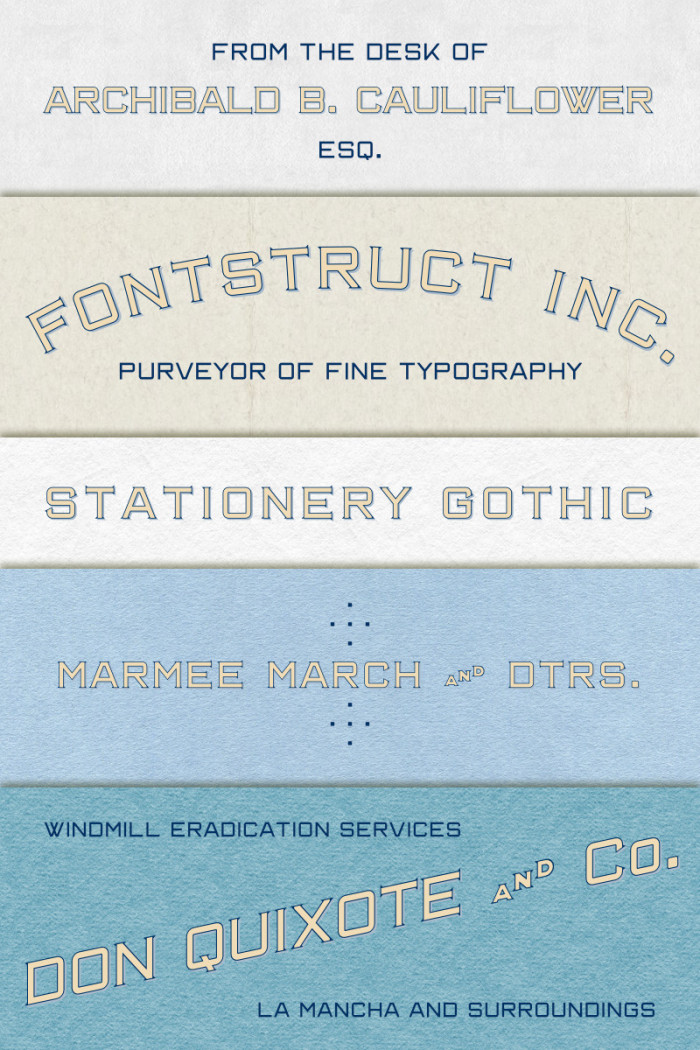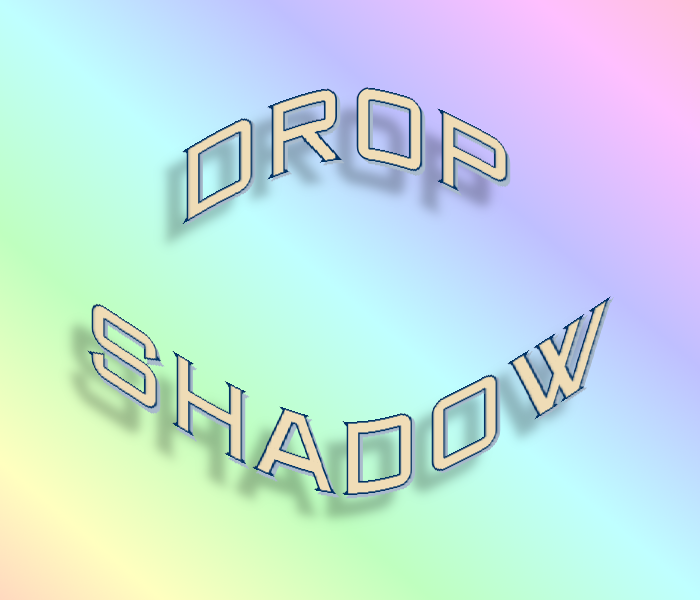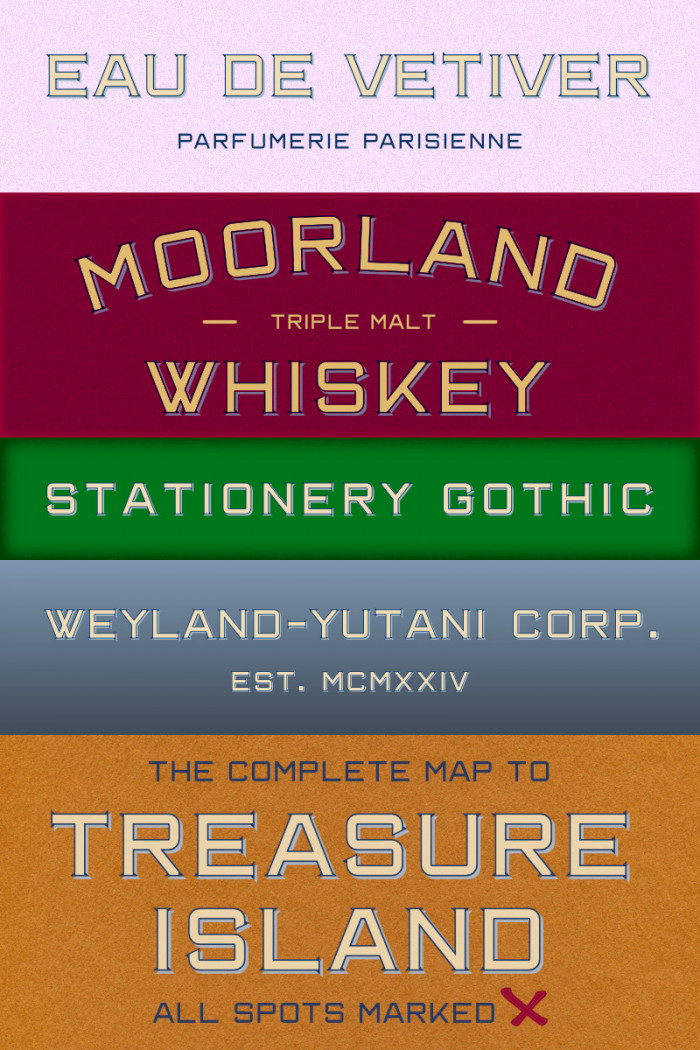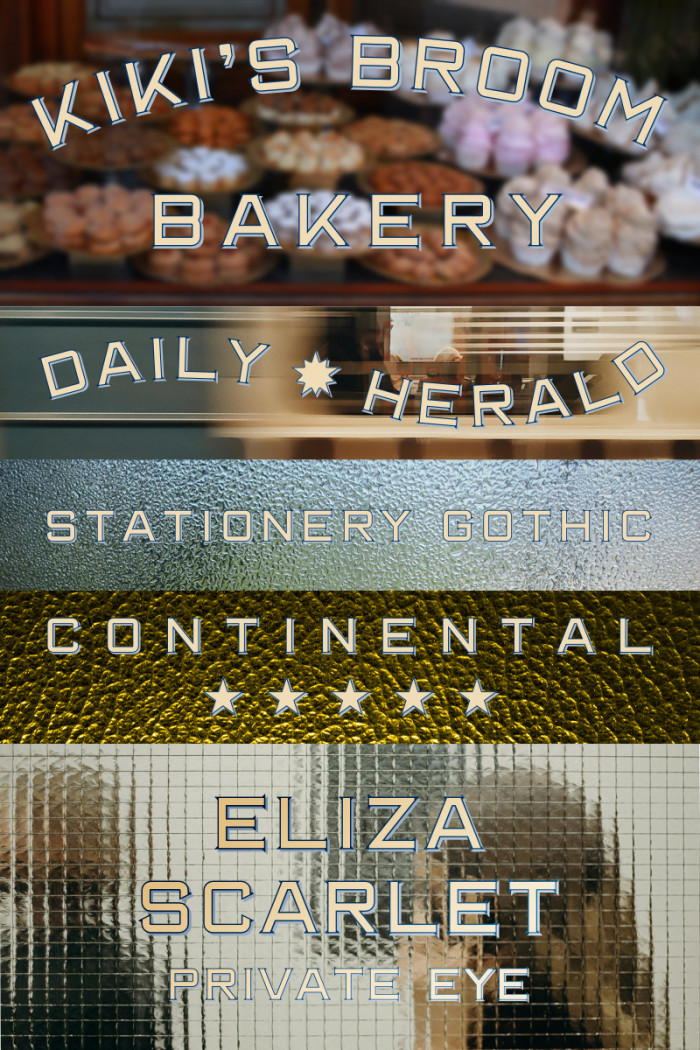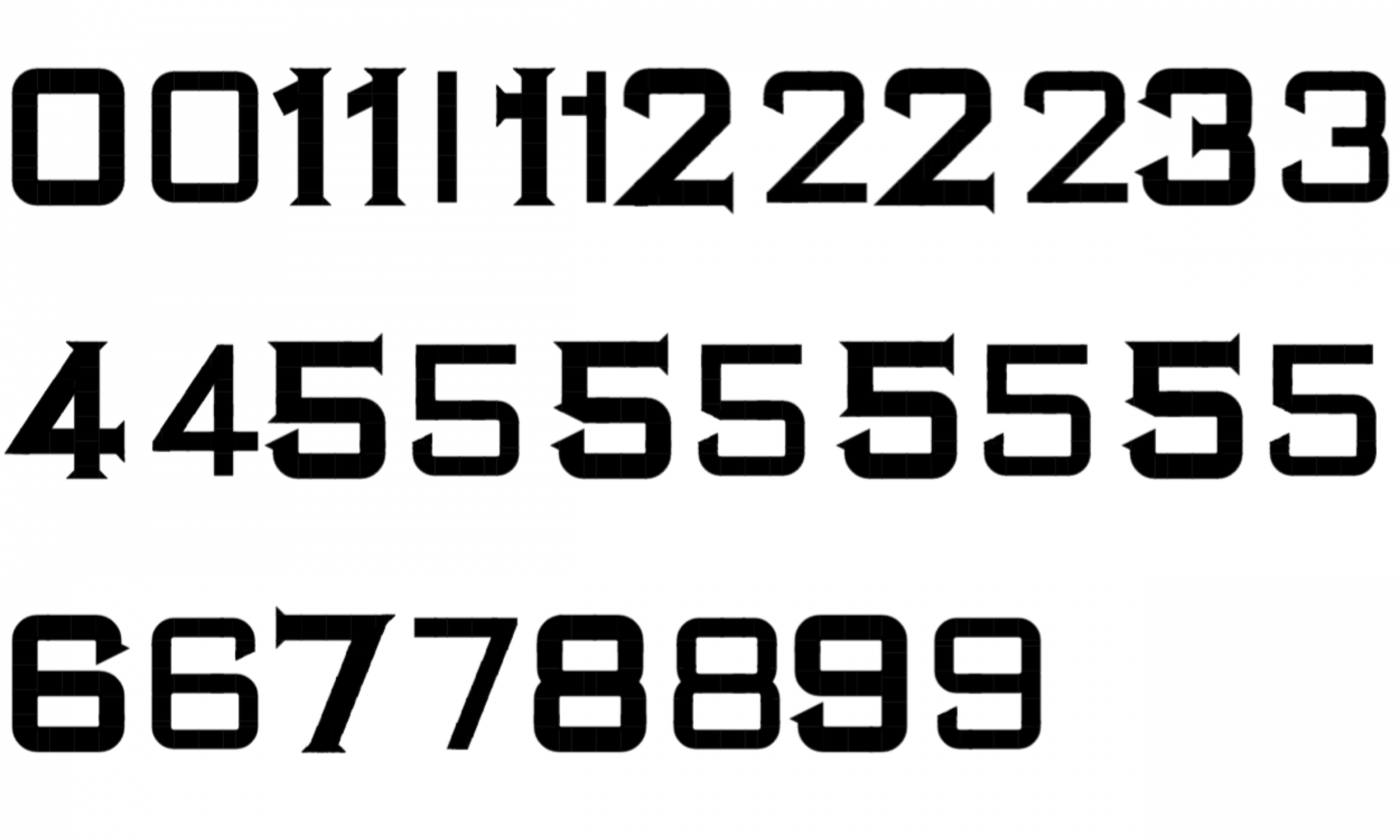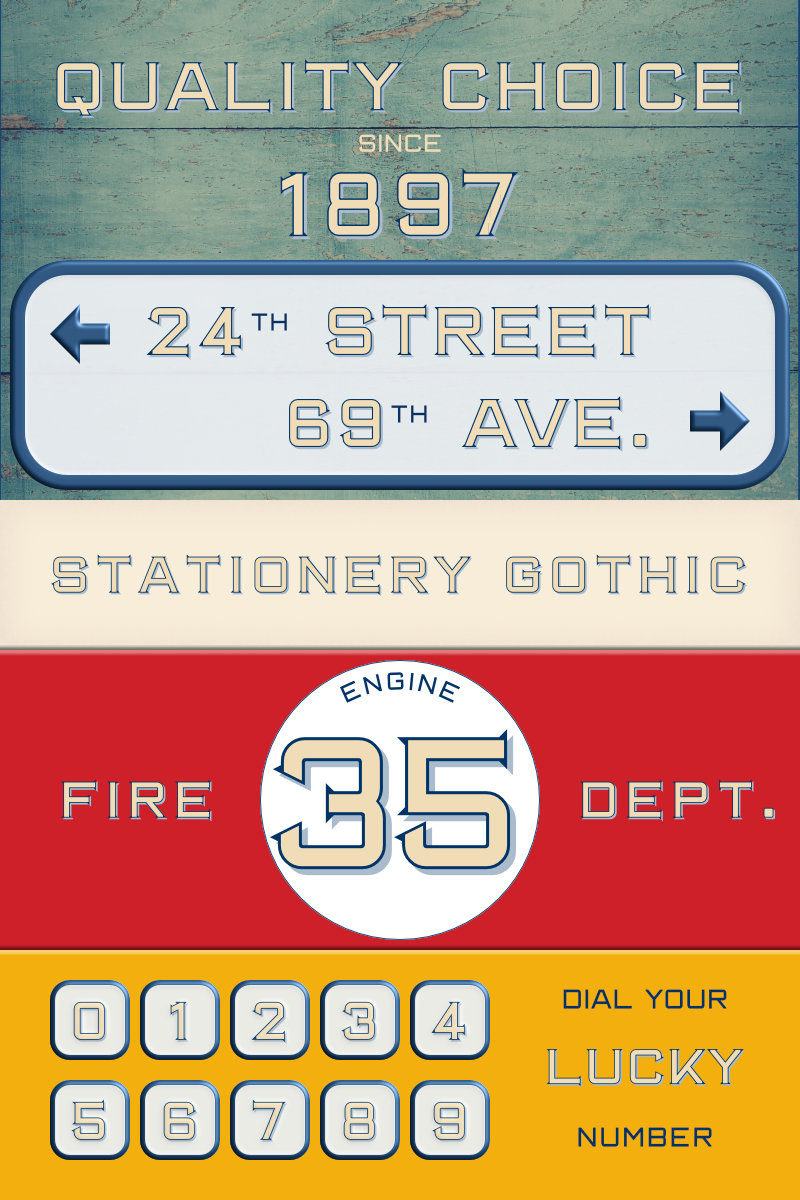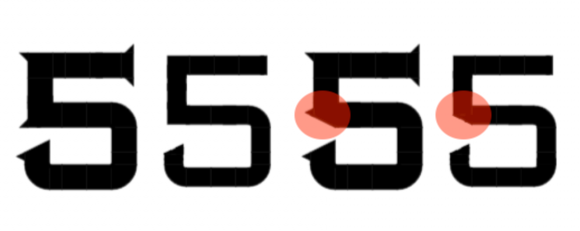
This looks great, will you finish the digits please?
I've always said it: the last days of a Comp bring us the best fonts. Congratulations!
Great idea, cool examples bro, +10
@Peter: Why, what’s wrong with Roman numerals? There’s even an alternate |V| perfect for your digit |5|! ;-)
Jokes aside, yes, when and if I’ll have the time to expand it, numbers are first in line.
@elmoyenique: I agree! After all, quality takes time, and there’s not much time between when a competition is announced and when it ends.
Great work. Really impressive.
Nice vintage font. You can also make a version with horizontal lines engraved. which the fonts of that era had.
I know this font already has a built in drop shadow, but I wondered what it would look like with another drop shadow added.
@Dmitriy Thank you. Yes, an engraved fill would be stylistically appropriate, but not so easy to achieve, on such a small grid, in FontStruct. Also, given the relatively narrow vertical and long horizontal bars, the result could be ungainly. But now you made me curious and perhaps I will try :-)
@Bryndan I intentionally made the drop shadow small and light, but ideally it should be a variable axis with two sliders that can move indipendently so that it can be freely placed wherever seems appropriate (one can dream ;-). Alternatively, I would remove the built-in drop shadow and either duplicate the text and use a displaced flatten-out version as my shadow, or, as in your sample, the built-in drop shadow effect of your software of choice.
RAINBOOOOOOOOOW SAMPLE
Stationery Gothic, not just for stationery!
Really nice use of the bricks and layers.
Numbers are coming… after the comp.
Serifs, outlines and shadows work well. Love the first set of samples.
I checked before naming this font, but apparently didn’t check hard enough: a Bank Gothic-like typeface called Stationers Gothic was released in 1942.
And here are the numbers, as promised.
Very, nice. I think a 5 with middle line either chamfered or shifted little higher than rest of digits would be more pleasant, but I guess you have all other glyps like B, E, H vertically symerical too.
@Peter: That was exactly my quandary. I introduced some slight optical corrections in the numbers that aren’t in the letters. However, there isn’t a single horizontal middle bar across both letters and numbers that isn’t right in the center. The chamfer would also be an unique feature among all glyphs. I will think about it some more. But first there will be a new |K| (or two).
I wonder what chamfer means? I never seen or heard that word used until now…
@BWM: in this context, it refers to what’s highlighted by the red circles in this image.
will you upload the thin font like the "dial your" text font
@digitalio: I think so, eventually. But because it’s just the “fill” part of the whole, first I would like to hone and flesh out a bit more this typeface and, second, since most glyphs currently exists only in this colour font, and they can’t be copied to another, I need to figure out the best way to do it.